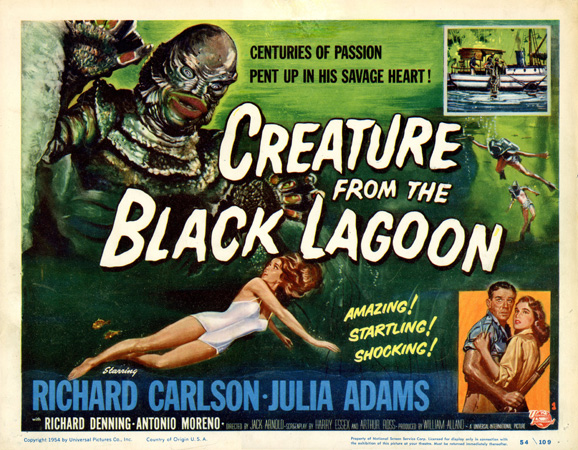
DONATAS 1,038 Posted June 4, 2017 Share Posted June 4, 2017 I watched all trailers from AHS 6 and this is what I noticed: John Whayne AHS 6 What do you think? Maybe they were inspired... Link to post Share on other sites More sharing options...
iAstroLeo 14,459 Posted June 4, 2017 Share Posted June 4, 2017 I just noticed the "filmed in GAGA VISION" Link to post Share on other sites More sharing options...
MonsterOfficial 11,079 Posted June 4, 2017 Share Posted June 4, 2017 it's a common font from 50s movies given that John Wayne was famous in that era exorcise my mind Link to post Share on other sites More sharing options...
Irrelevant 20,293 Posted June 4, 2017 Share Posted June 4, 2017 20 minutes ago, Donatas said: I watched all trailers from AHS 6 and this is what I noticed: John Whayne FILMED IN GAGAVISION WTF Link to post Share on other sites More sharing options...
Allan 3,948 Posted June 4, 2017 Share Posted June 4, 2017 15 minutes ago, iAstroLeo said: I just noticed the "filmed in GAGA VISION" 6 minutes ago, Irrelevant said: FILMED IN GAGAVISION WTF John Wayne was the GAGAVISION of Joanne era, when will Born This Way era's GAGAVISION and Littlemonsters.com era's MONSTERVISION Link to post Share on other sites More sharing options...
Edonis 28,974 Posted June 4, 2017 Share Posted June 4, 2017 18 minutes ago, MonsterOfficial said: it's a common font from 50s movies given that John Wayne was famous in that era This x 100. A lot of Gaga's art and visuals are inspired by retro imagery and sounds (TF was 80's synth pop and Grace Jones/David Bowie, TFM was 90's Europop and vintage horror, BTW was 80's electronica in both music and imagery, ARTPOP's imagery was inspired by some retro 50's space stuff, and Joanne was obviously 60's and 70's pop music and vintage western imagery. It's a classic Gaga motif) /thread Link to post Share on other sites More sharing options...